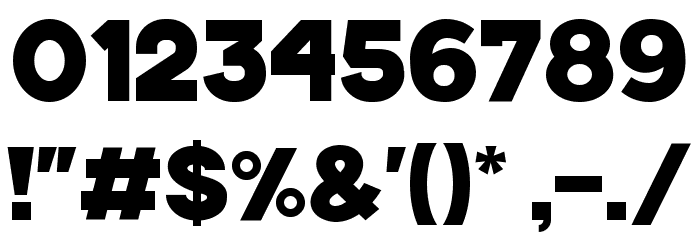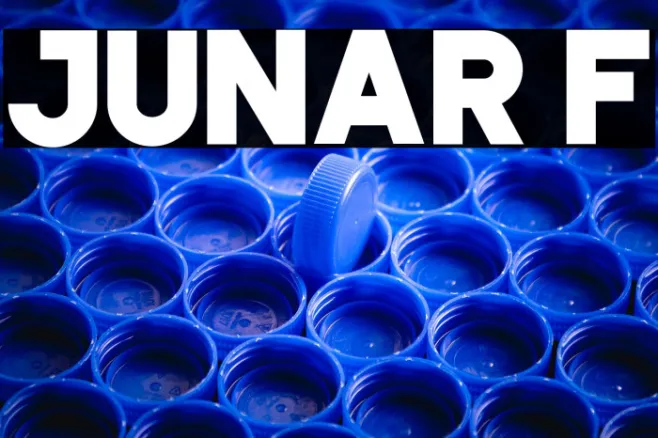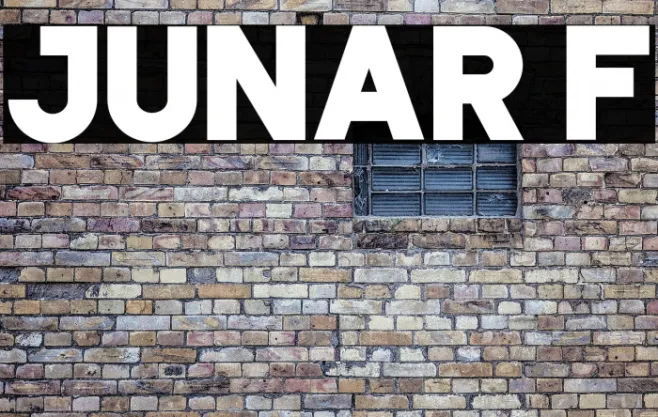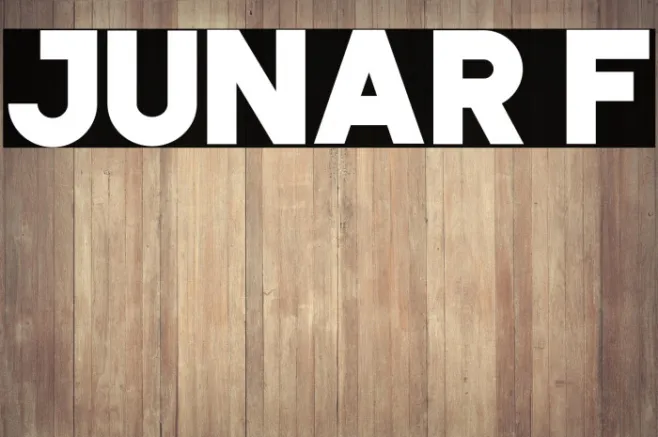
JUNAR Font
This bold and impactful font features thick, uniform strokes that create a strong visual presence. The characters are well-defined with a modern, geometric style, making it highly legible and suitable for various design applications. The uppercase and lowercase letters maintain a consistent weight, contributing to a cohesive look. The numerals are equally bold, ensuring they stand out in any context. Special characters are included, providing versatility for different uses. The font's overall appearance is clean and professional, making it ideal for projects that require a bold statement.
A bold, geometric font with strong, uniform strokes and high legibility.
- Proposed Projects: Ideal for headlines, posters, branding, and advertising where a strong visual impact is needed.